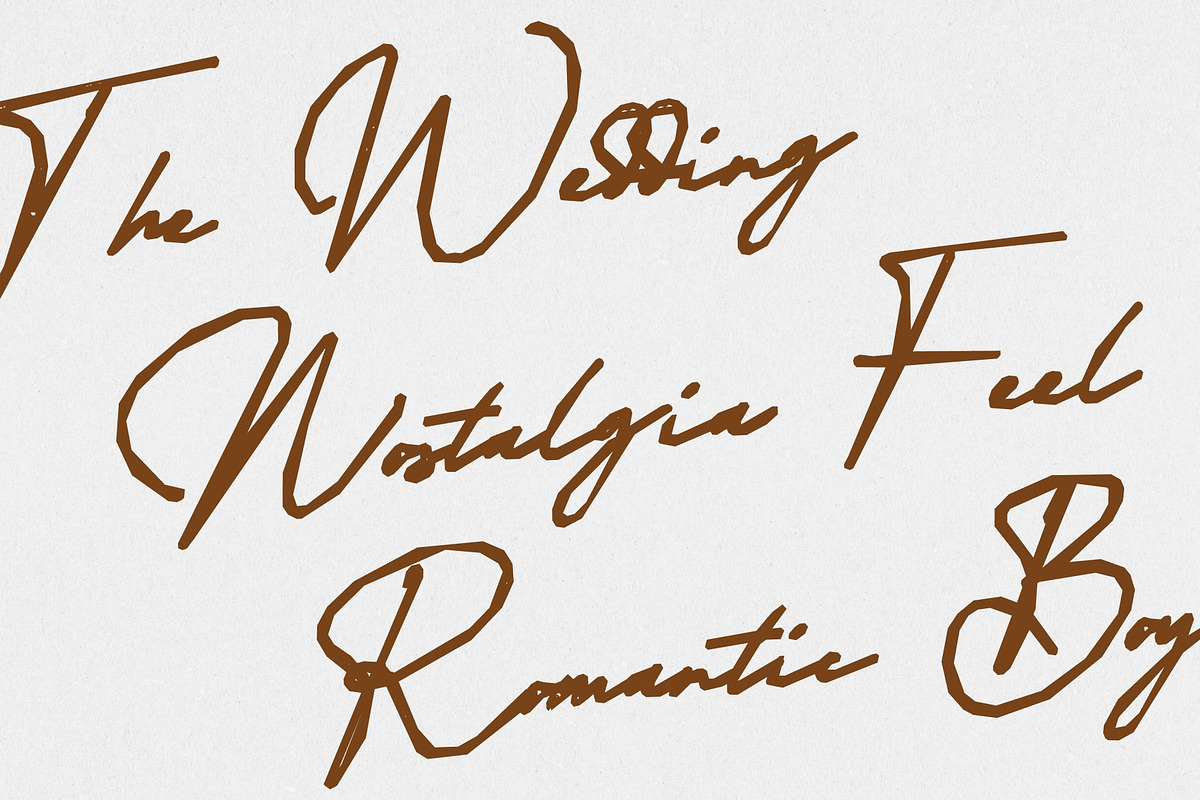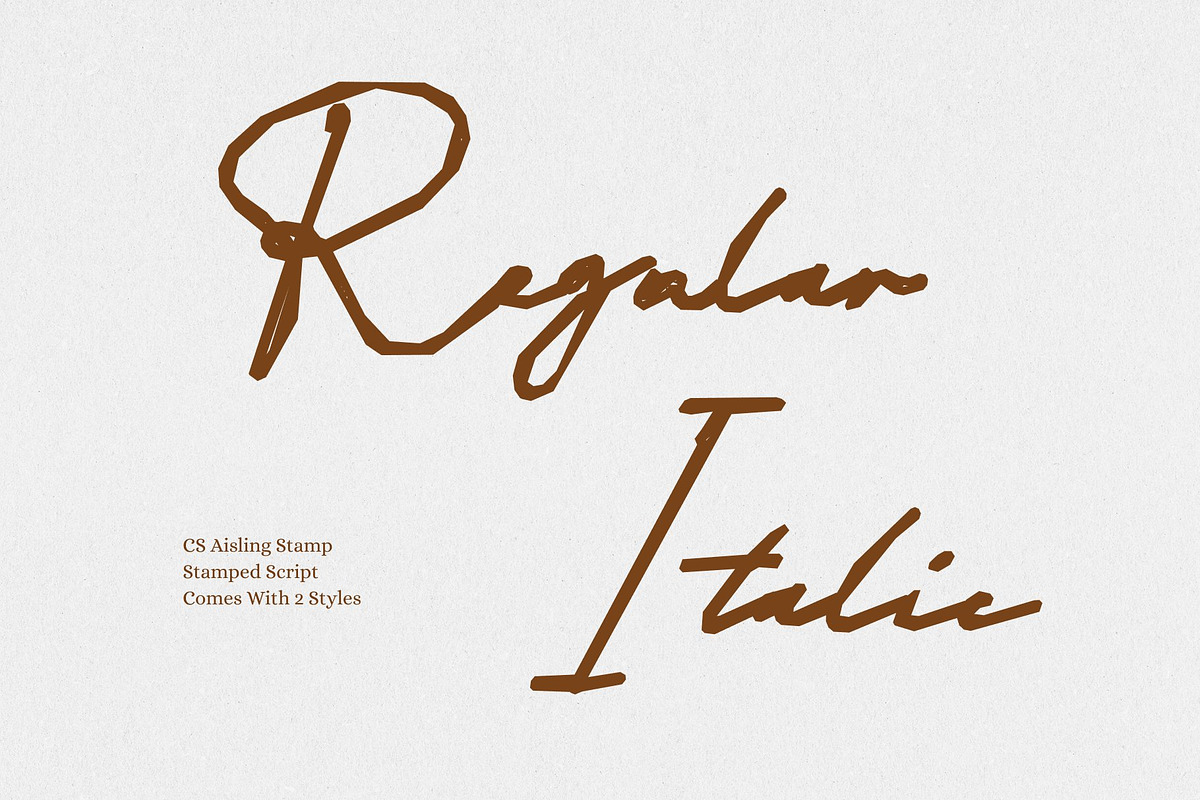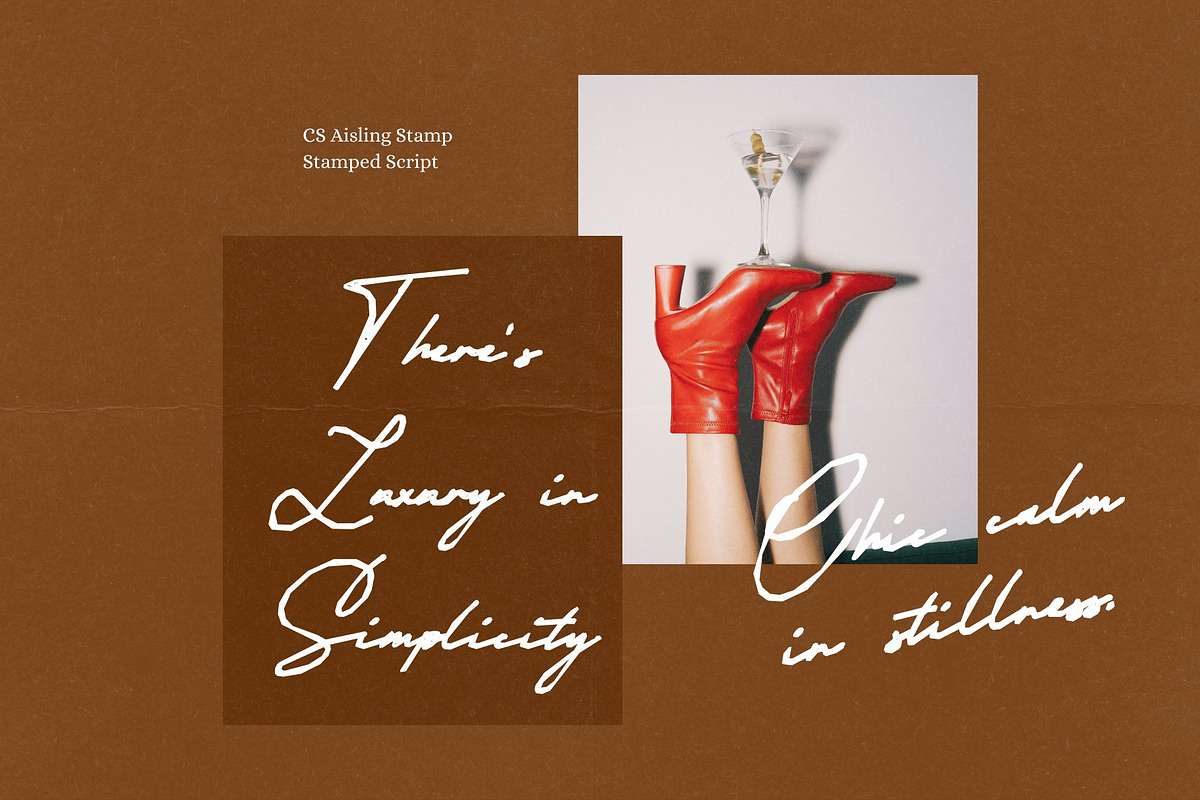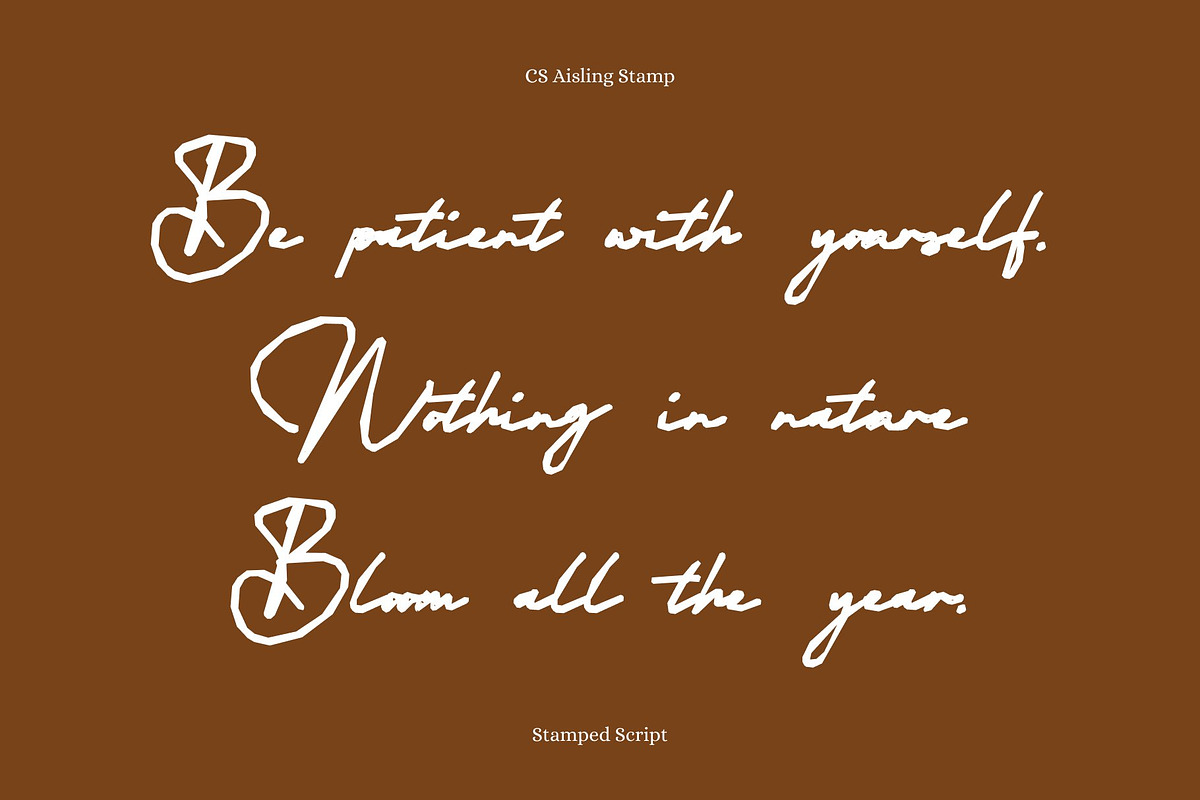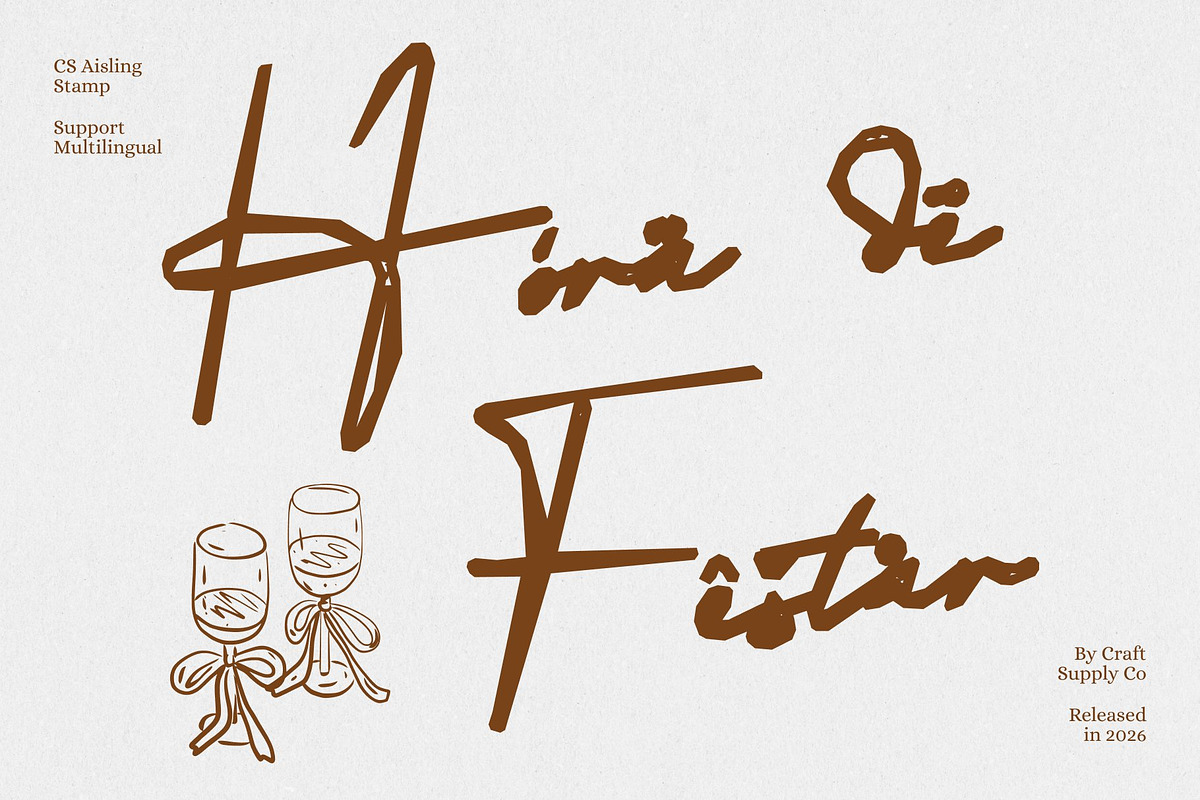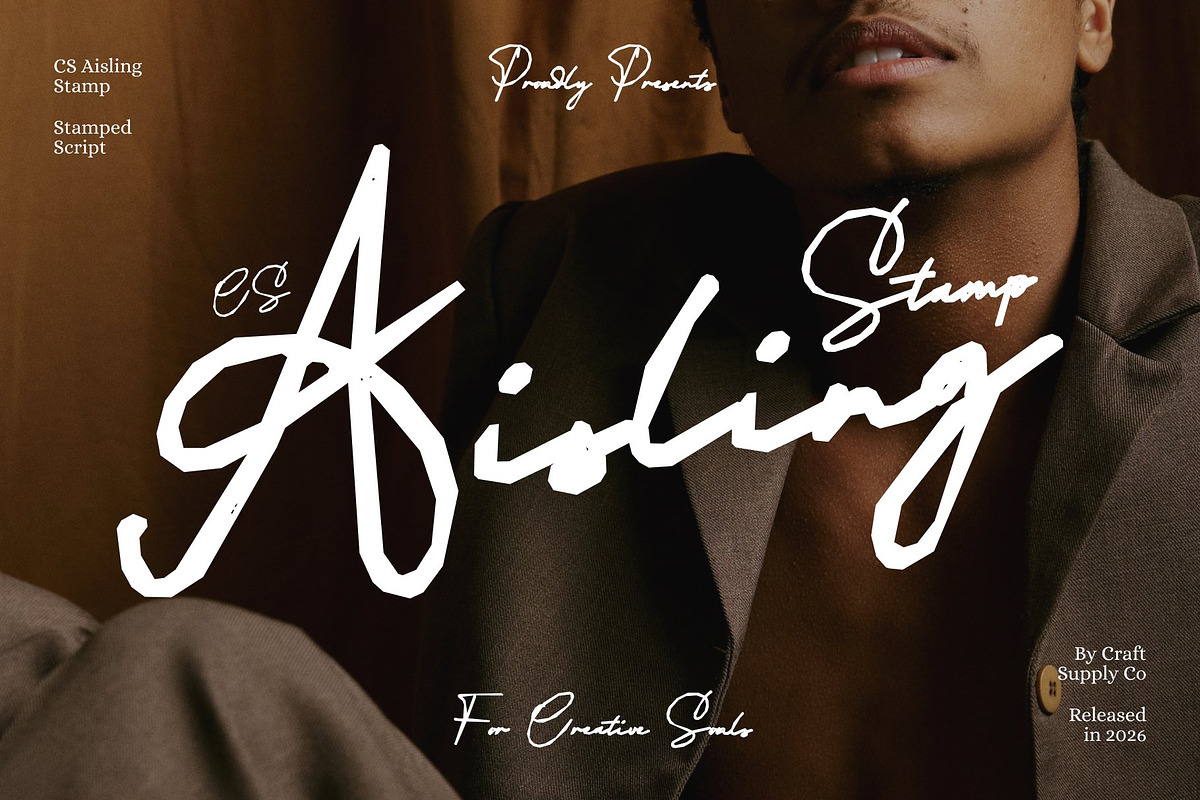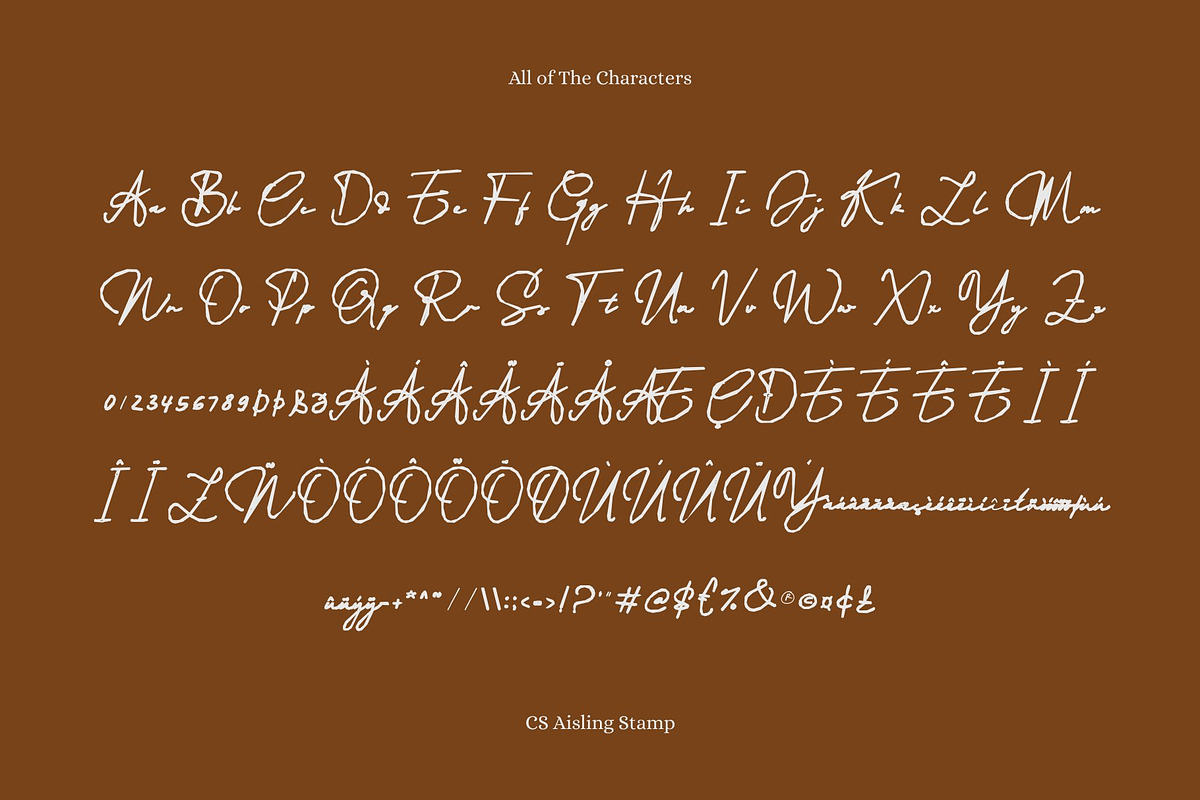
CS Aisling Stamp
CS Aisling Stamp – Personal Signature Style with Timeless Elegance Signature Script Font with Handwritten Authenticity This is a signature-style script font crafted to capture the intimate character of genuine handwritten signatures. Inspired by natural pen strokes and fluid writing motion, it delivers a personal and expressive feel that instantly adds individuality to any design. Enhanced with a stamp effect, the font gains subtle texture and vintage depth, giving each letter a beautifully imperfect.
Organic Strokes with Distinctive Personality The charm of lies in its organic flow and natural rhythm. Gentle variations in stroke weight and smooth letter connections closely resemble real handwriting, creating an authentic and exclusive look. The stamped texture introduces a slightly worn, artistic quality, making designs feel custom-made, personal, and rich with character rather than polished or mechanical.
Elegant Expression with Vintage Warmth Balancing softness and sophistication, ideal for refined and luxury-oriented visuals. Its graceful curves convey confidence and elegance, while the textured stamp finish adds warmth and timeless appeal. This combination creates a signature font that feels both elevated and human perfect for designs that value authenticity, emotion, and understated luxury.
Ideal for Logos, Branding, and Luxury Invitations Designed for premium applications, works beautifully for logos, personal branding, luxury invitations, packaging, and fashion or beauty projects. Its signature form makes it especially suited for boutique brands, wedding stationery, upscale events, and artisanal products adding a personal, elegant, and vintage-inspired touch to every composition.